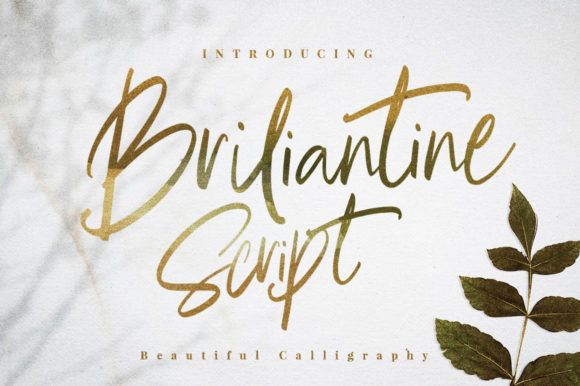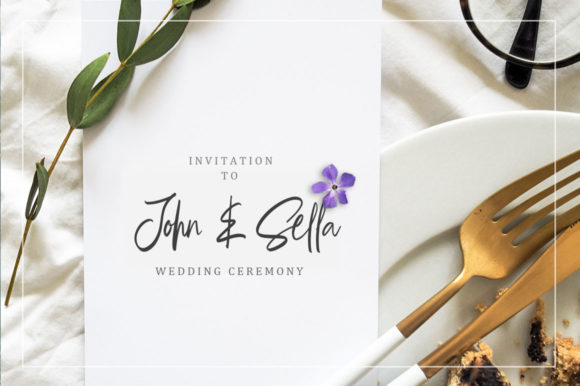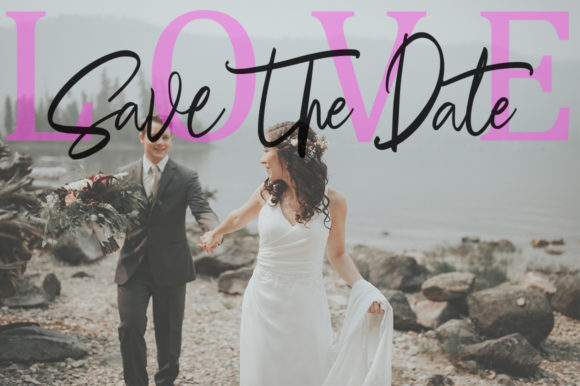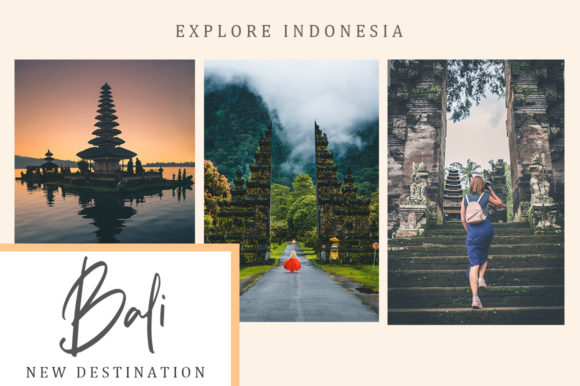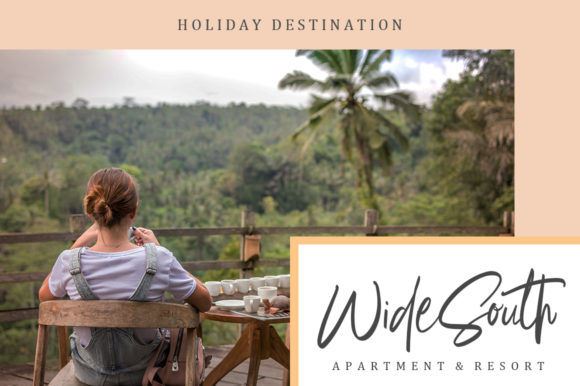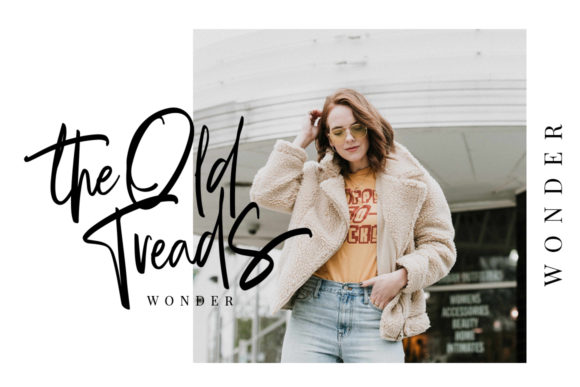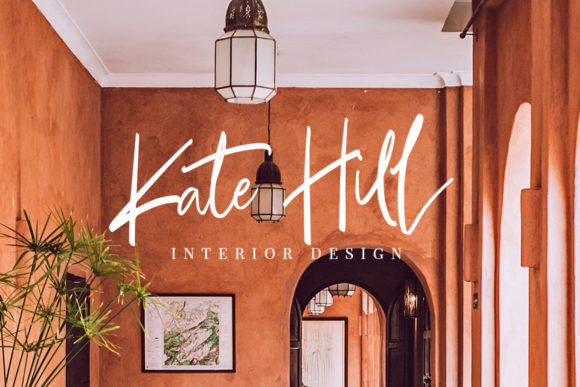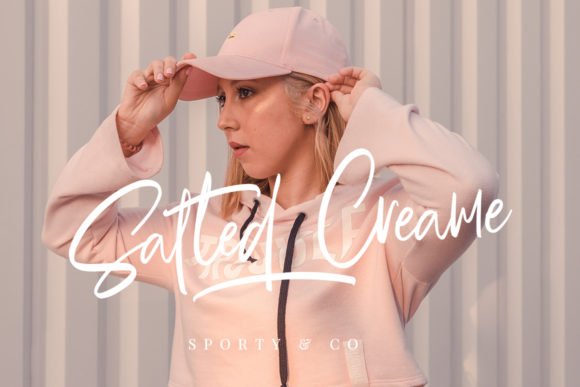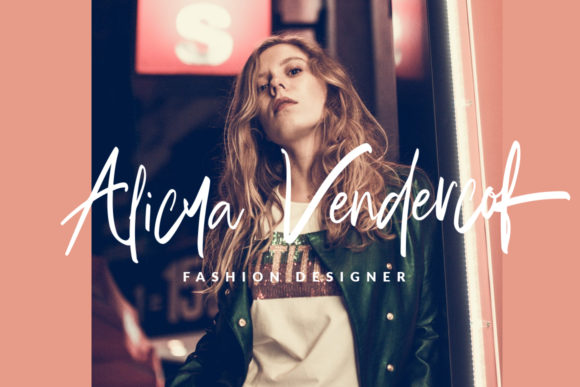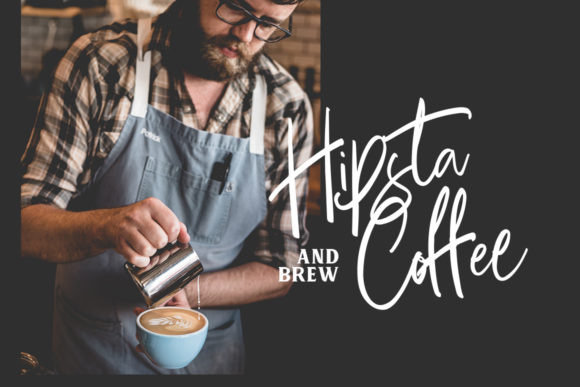
Briliantine Script Font
About Briliantine Script Font
Briliantine stands out as a fashionable and super-chilled calligraphy font, designed to bring elegance and style to your creative projects. With beautiful swashes and available in both regular and italic styles, Briliantine offers a versatile typographic solution that harmonizes seamlessly with a diverse range of design applications.
One of the distinctive features of Briliantine is its calligraphic charm, contributing to a sense of sophistication and refinement. The inclusion of swashes adds an extra layer of beauty, allowing for creative flourishes that enhance the overall visual appeal. This attention to detail makes Briliantine an excellent choice for projects that demand a touch of elegance and creativity.
The font’s versatility shines through in its applicability to various design projects. Whether crafting logos and branding elements, designing wedding materials, creating engaging social media posts, developing eye-catching advertisements, or working on product designs, Briliantine offers a beautiful typographic solution that adapts effortlessly to different contexts.
In summary, Briliantine is not just a font; it’s a stylish and versatile design asset that brings a touch of sophistication to your creative endeavors. Whether applied to digital or print materials, its fashionable and super-chilled calligraphy style elevates the visual language of logos, branding, social media posts, and more, making it a valuable tool for designers seeking a harmonious and elegant typographic solution.